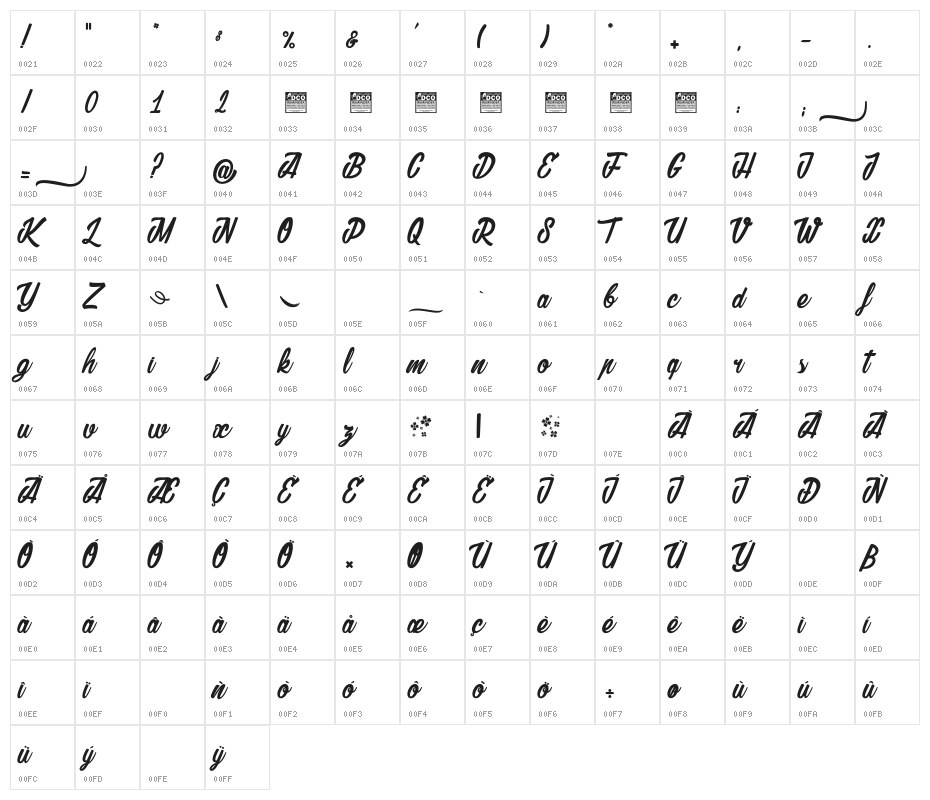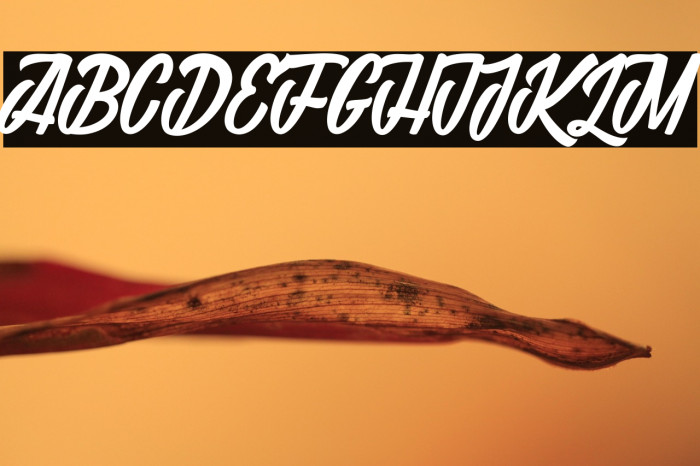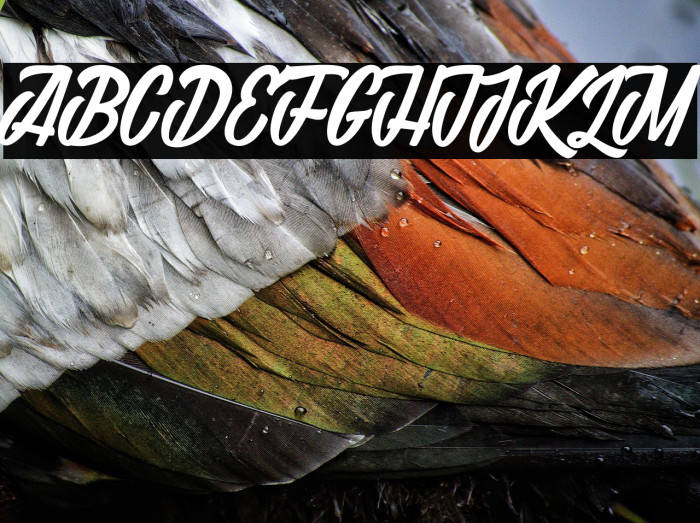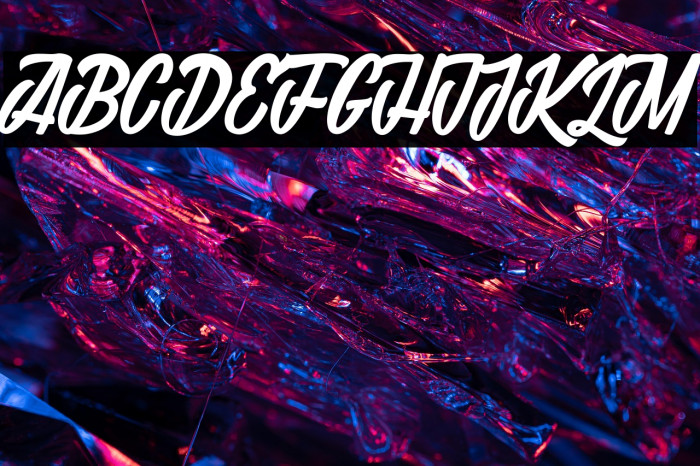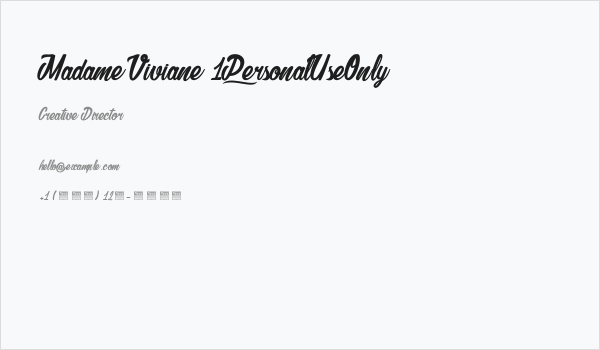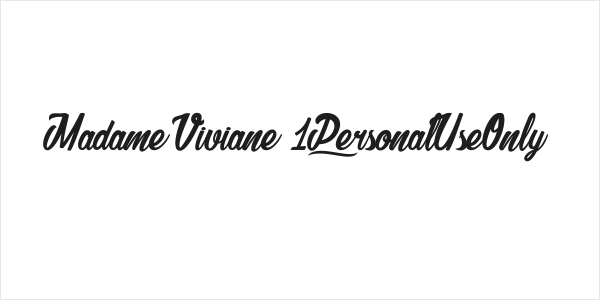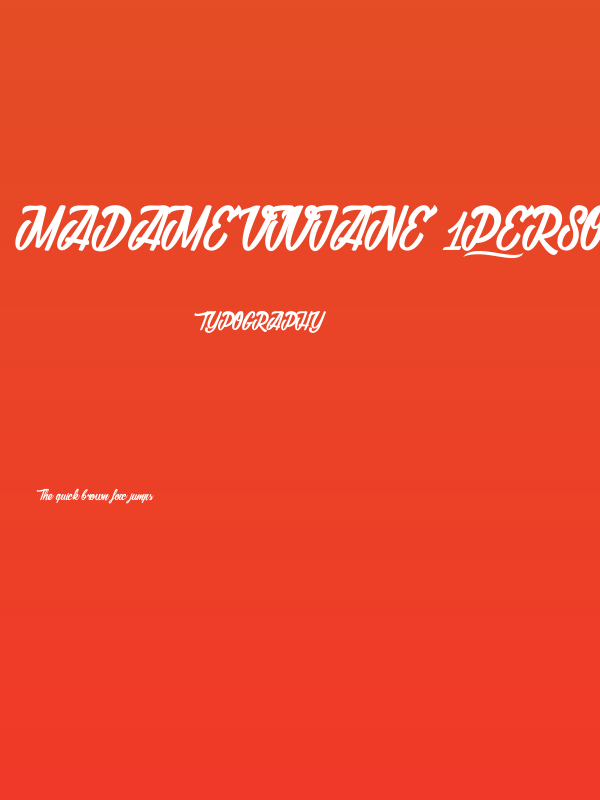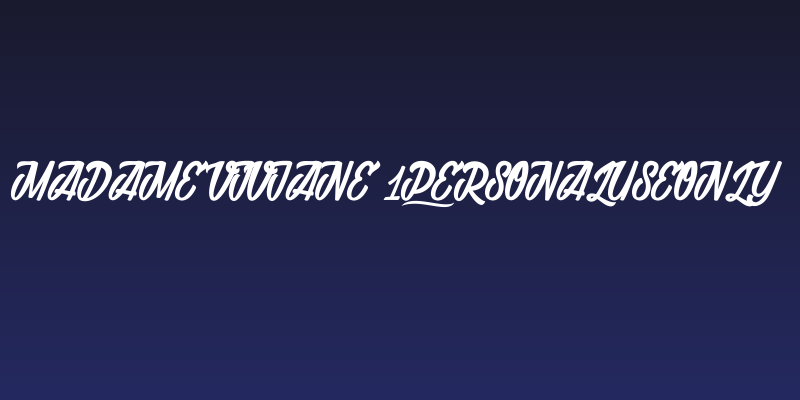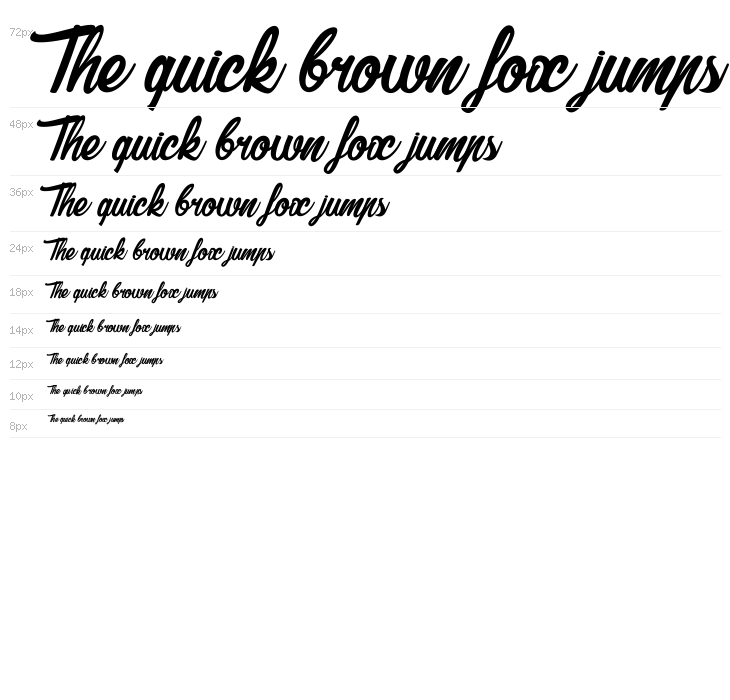
Madame Viviane 1_PersonalUseOnly Font
Madame Viviane 1_PersonalUseOnly Description
This font features a bold and flowing script style, characterized by its elegant and cursive letterforms. The uppercase letters are particularly striking, with sweeping curves and a sense of movement that adds a dynamic quality to the text. The lowercase letters maintain this fluidity, offering a harmonious blend of style and readability. The numbers and special characters are designed to complement the overall aesthetic, ensuring consistency across all elements. This font exudes a sense of sophistication and is ideal for projects that require a touch of elegance and flair.